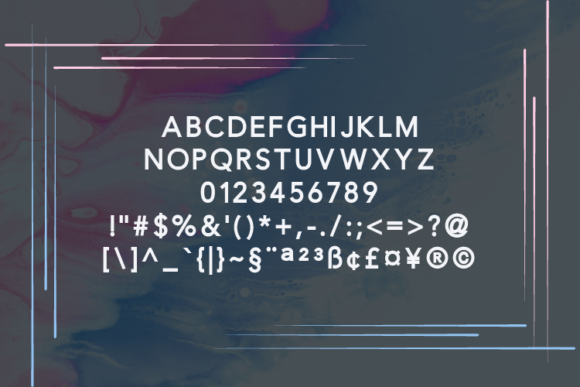
The Gothic Bold Font: A Modern Elegance for Your Designs
A Personal Review: What I Love About Gothic Bold
Gothic Bold is a modern and elegant sans serif font that has quickly become one of my go-to fonts. Here are some things I love about it:
- ✨ Clean and minimalist design: Gothic Bold has a sleek and contemporary look that works well for a variety of design projects.
- ✅ High legibility: The font is easy to read, even at smaller sizes, making it perfect for body text and headings.
- 💡 Versatility: Gothic Bold pairs well with script and handwritten fonts, adding a touch of sophistication to your designs.
- 🤔 Limited character set: Gothic Bold might not have an extensive character set, which could limit its use for certain languages or special characters.
The Designer Inspiration Behind Gothic Bold
Gothic Bold was designed with the goal of creating a modern and elegant sans serif font. The designer aimed to create a font that would be perfect for headings and body text, with a clean and minimalist design. The result is a font that’s both versatile and sophisticated.
| Font Name | Gothic Bold Font |
| Author | Nan Design |
| What is Gothic Bold? | Gothic Bold is a modern and elegant sans serif font designed for headings and body text. |
| Is Gothic Bold suitable for body text? | Yes, Gothic Bold is legible and suitable for body text, but it’s recommended to use it in combination with other fonts for better readability. |
| Does Gothic Bold have OpenType features? | Yes, Gothic Bold has OpenType features, including glyphs and stylistic alternates, which can be used to add more creativity to your designs. |